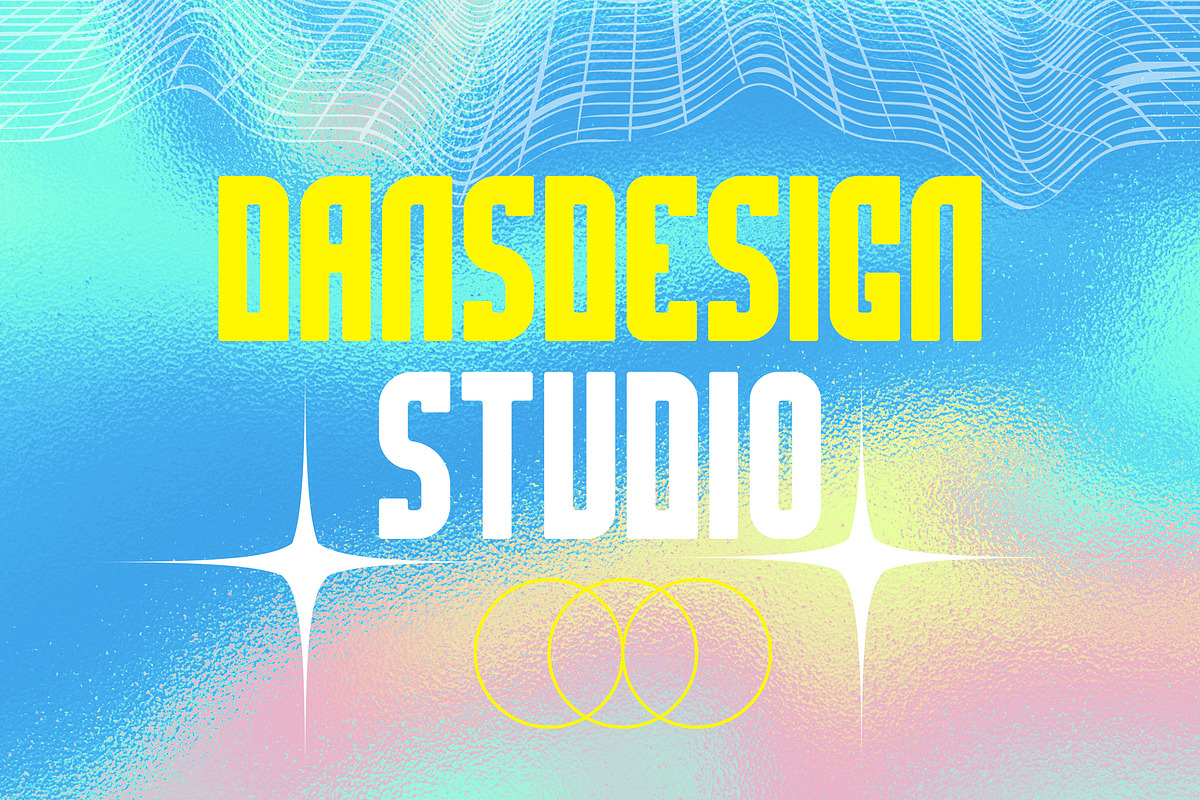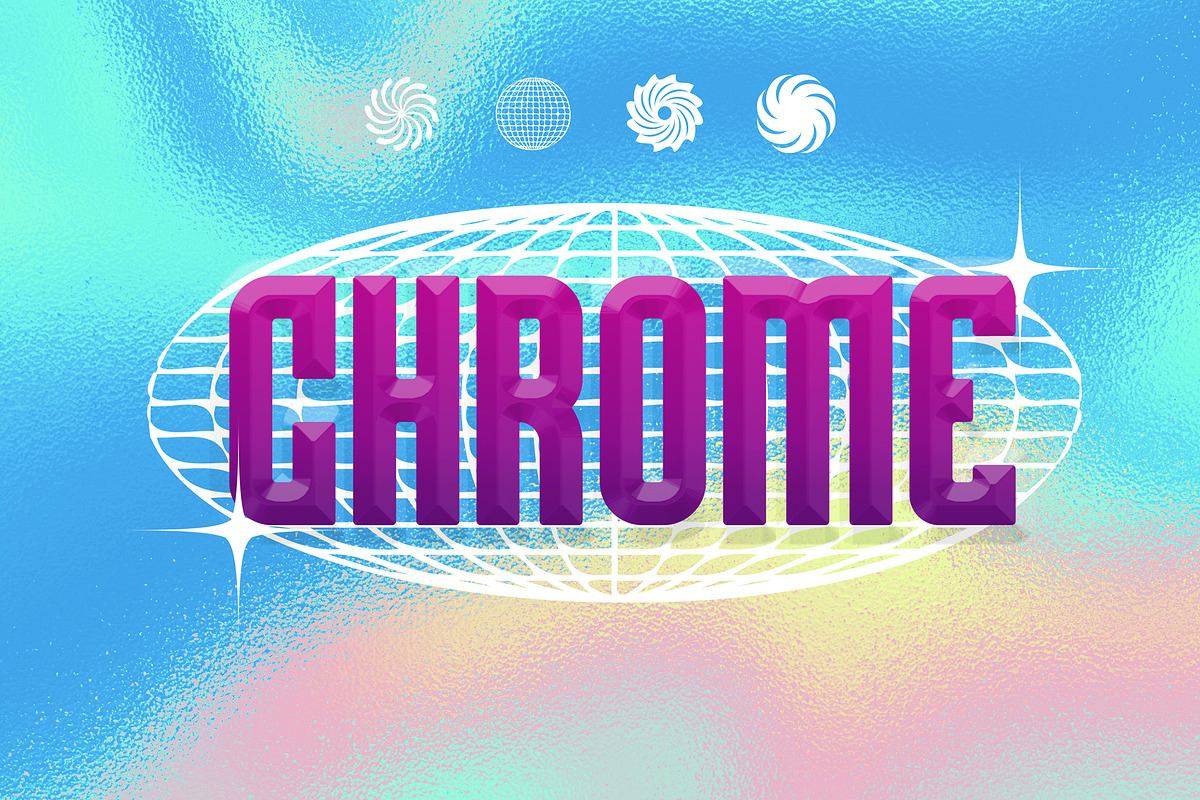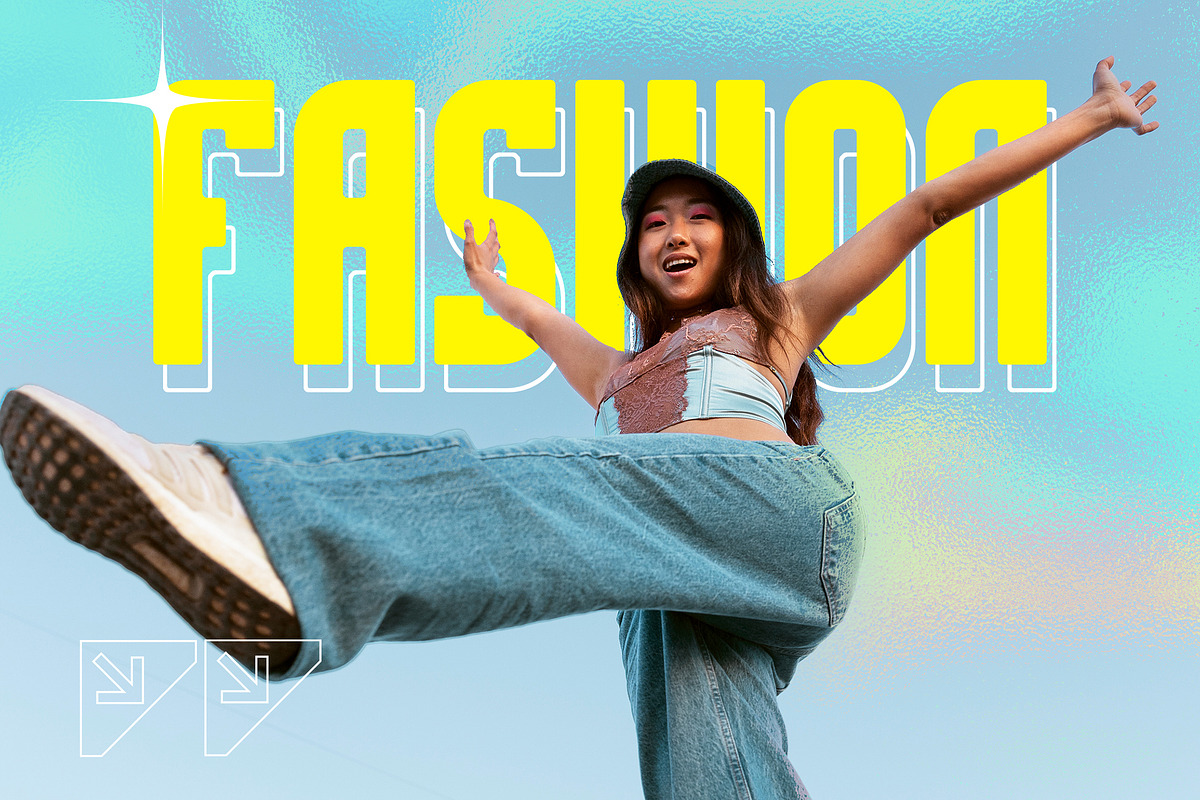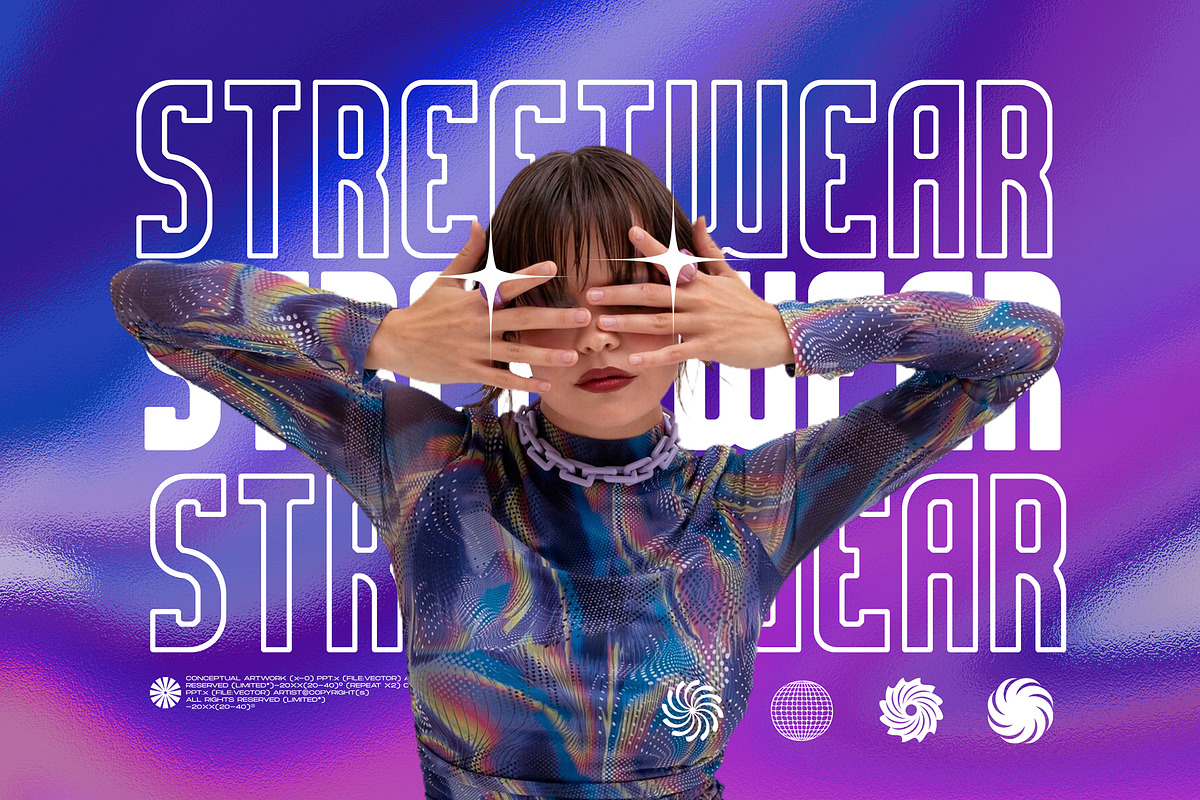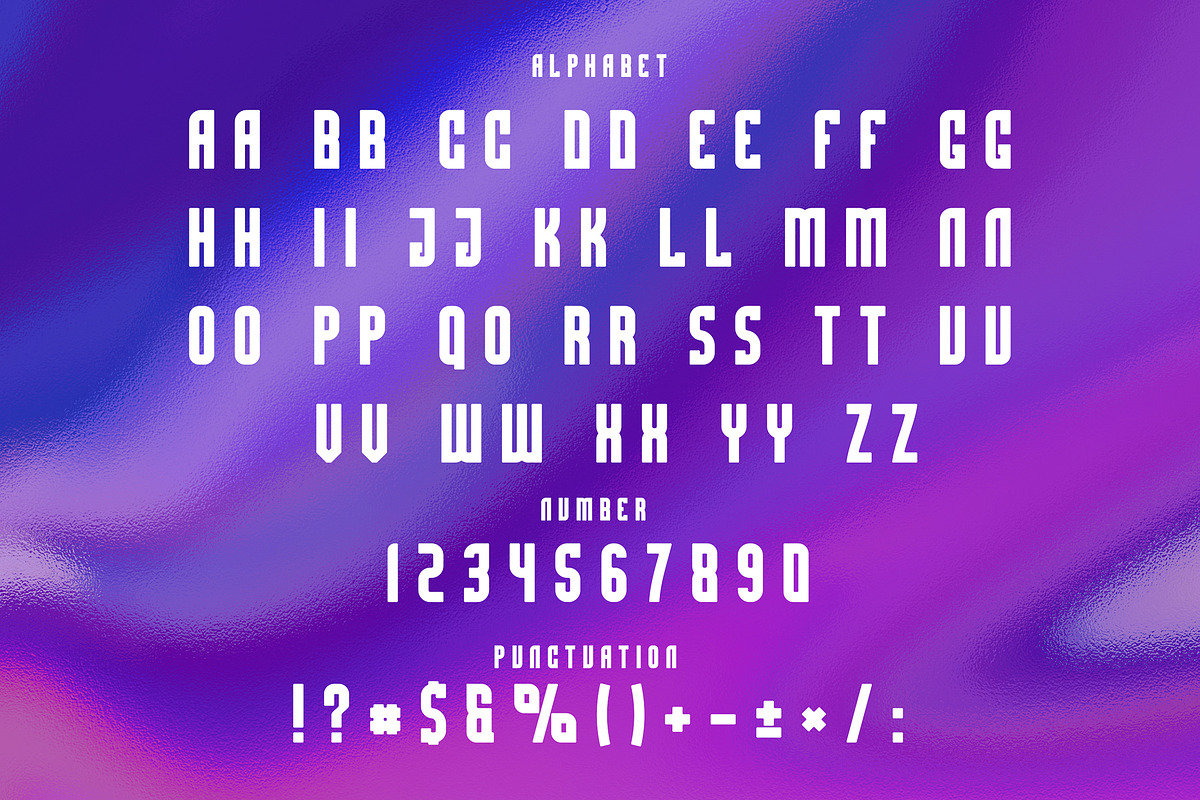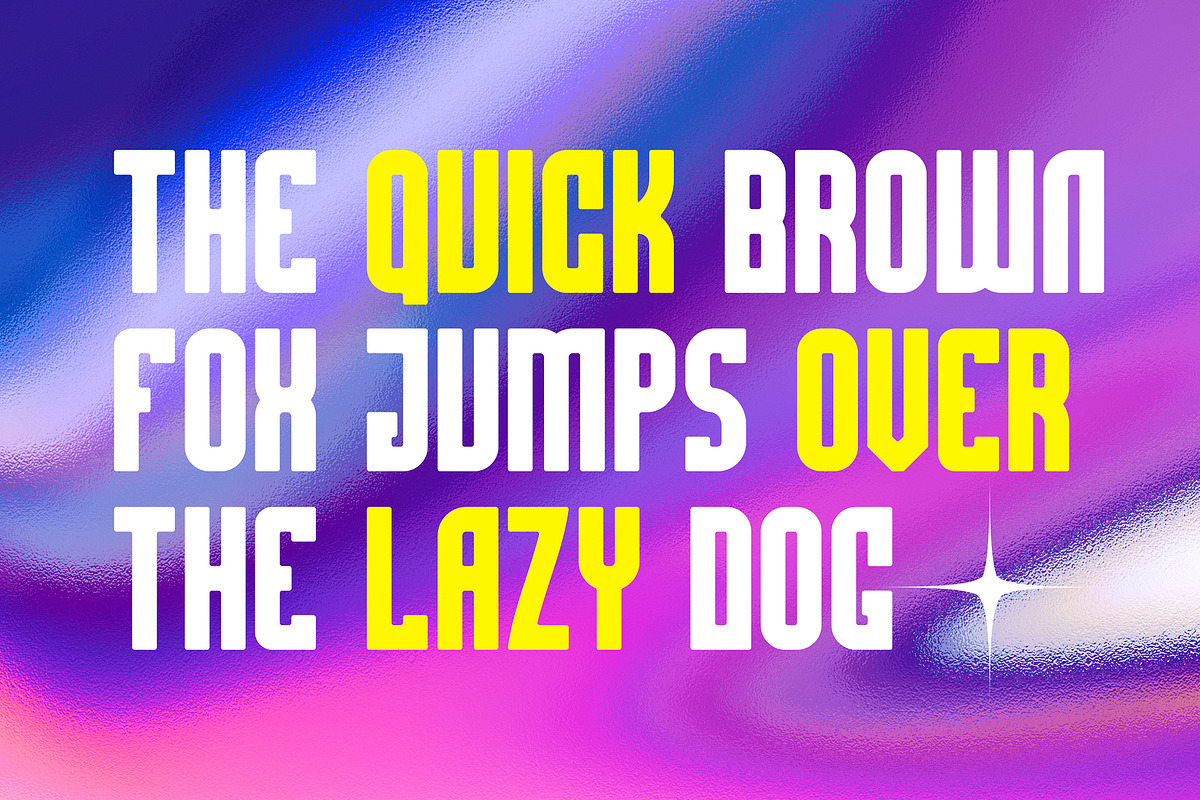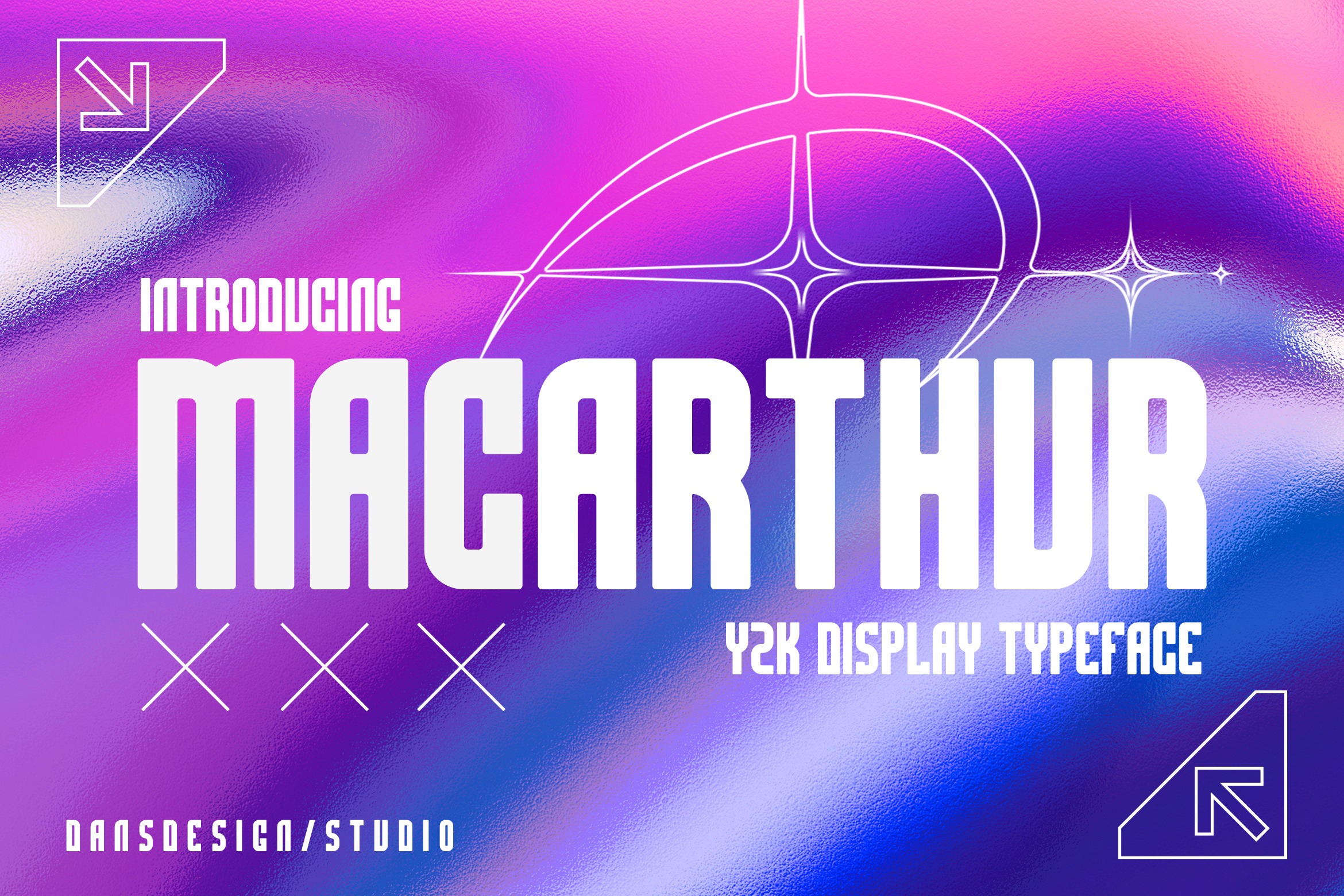
Macarthur Y2K Display Typeface Font
a distinct, highly detailed. GRAFFITI Display Font. It would make a great choice for exquisite retro-urban designs, business branding, logos, Apparel designs, and more.